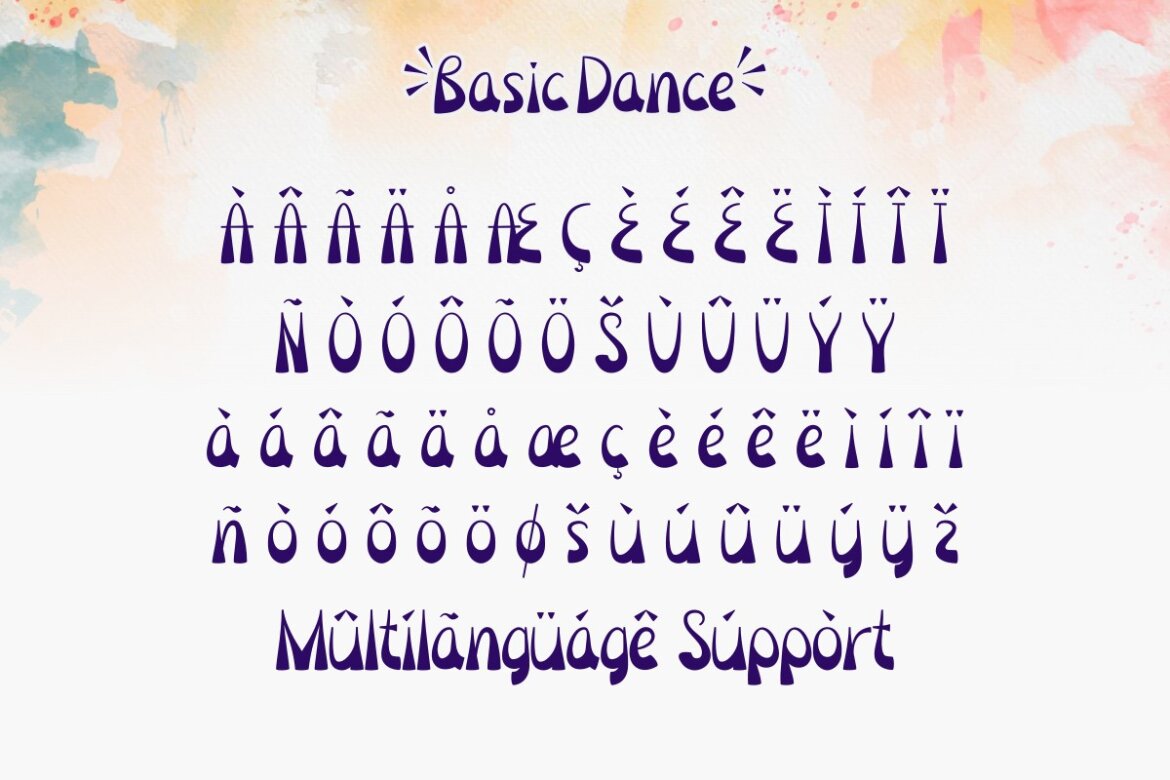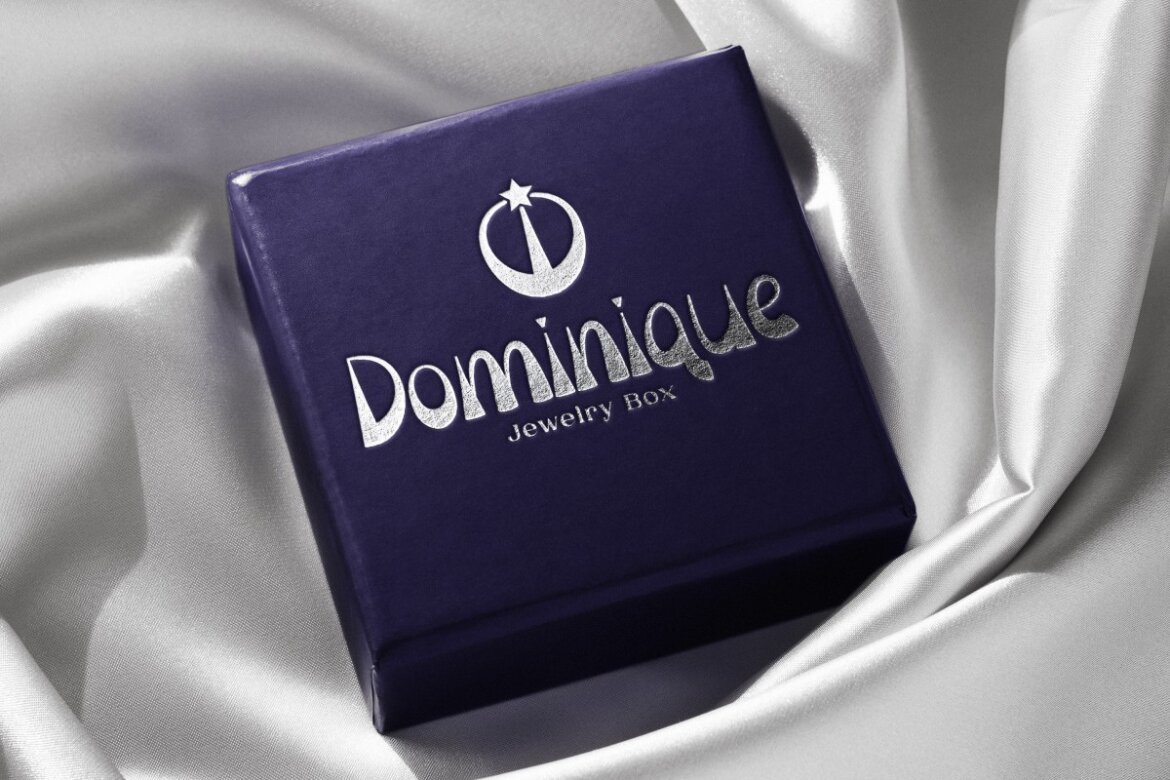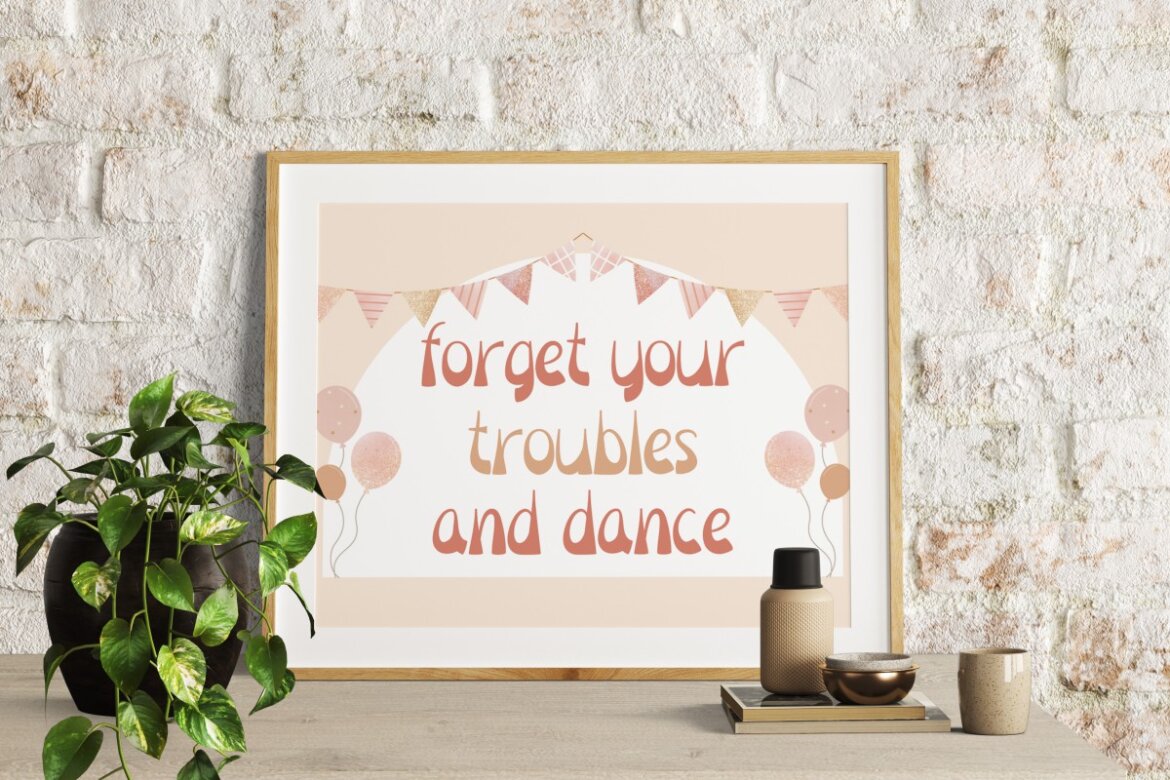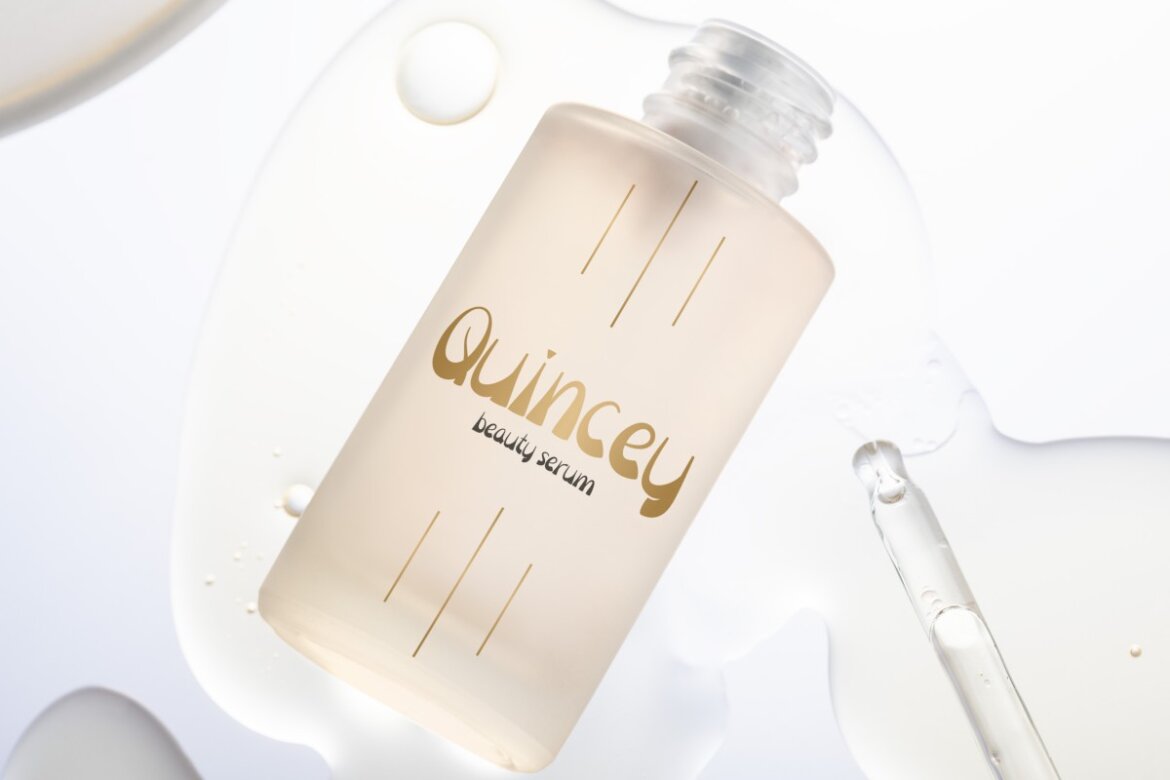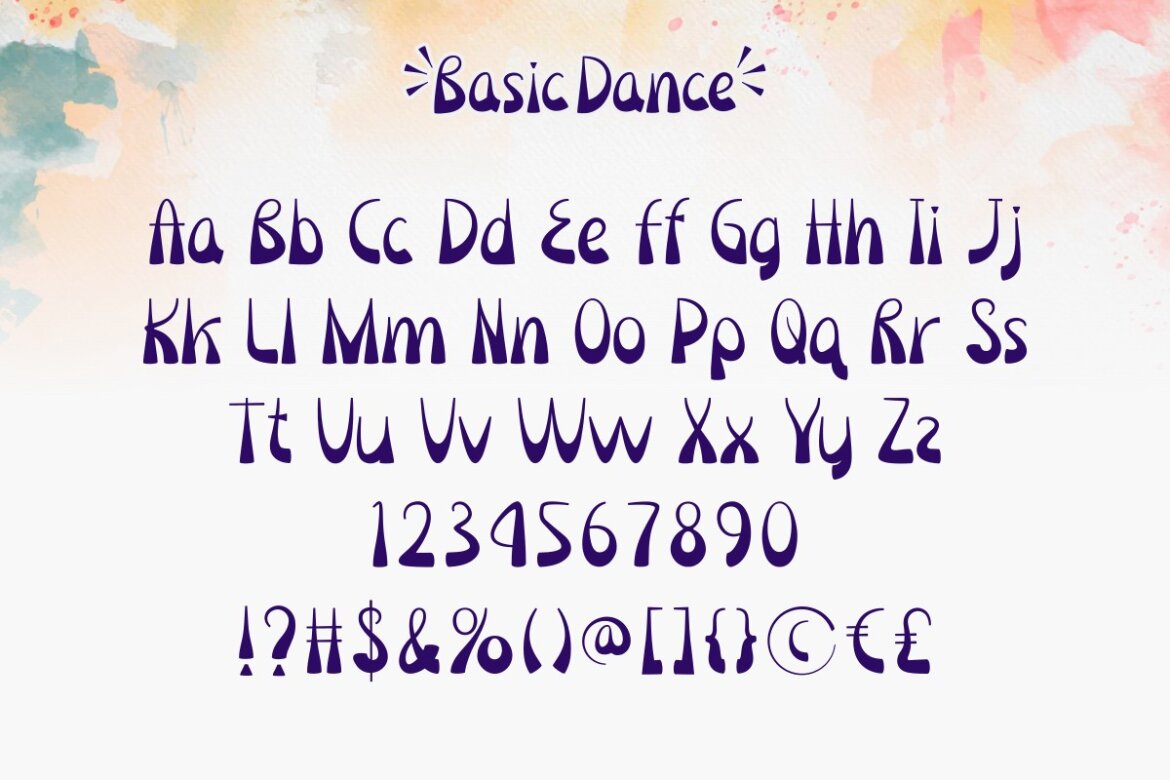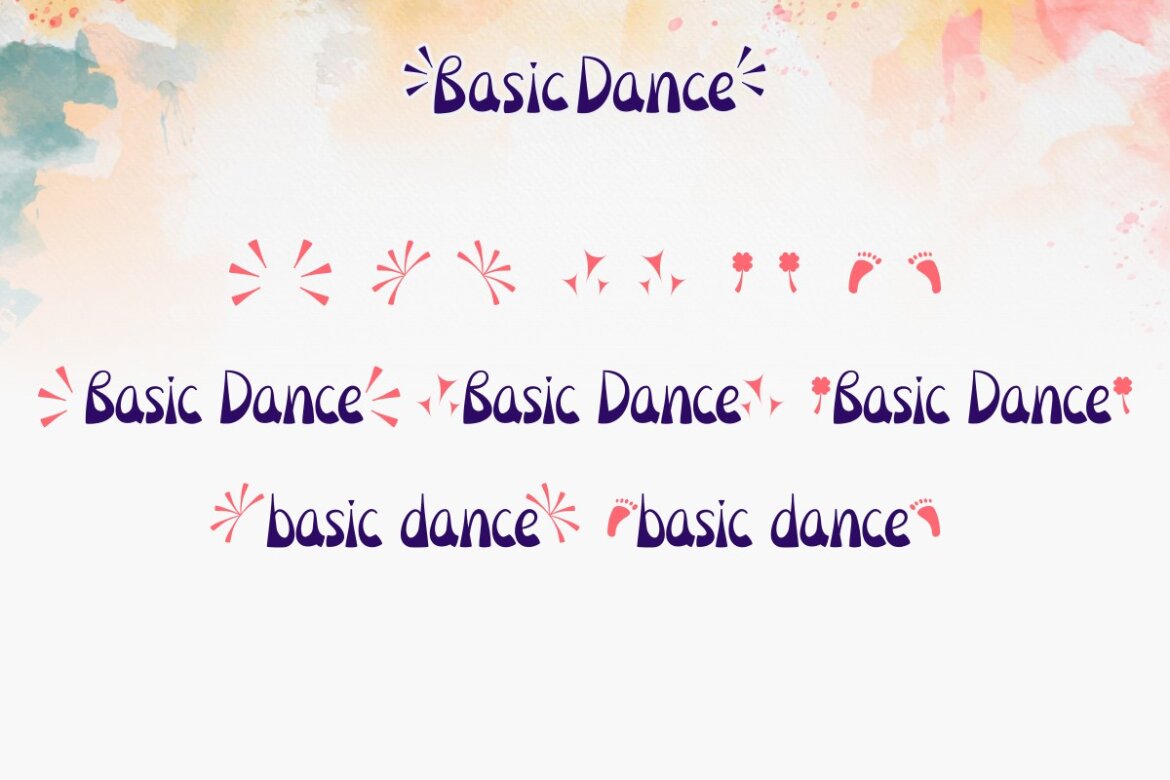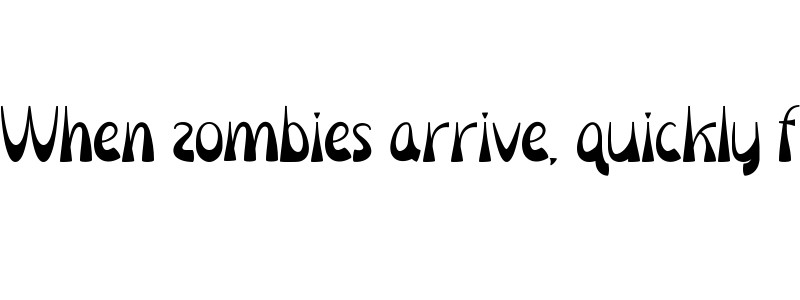
Basic Dance FREE Display Font
Basic Dance
Basic Dance Font is a fun yet classy display font with playful look, created by CalligraphyFonts. This font has a unique thickness at the bottom of each letter and will be ideal for your many industries, such as artist, boutique, cosmetic, event planner, jewelry, movie, music, and anything that requires stylish uniqueness. You’ll get:
Basic Dance Font will be perfect for any creative project including : billboard, brand logo, product packaging, label, quote, screen printing, stationery, title, and good for your secondary text font with script. Made with care so as to create perfection in writing and add aesthetics as well as fun to every design made. Basic Dance Font comes with a full set of Uppercase and Lowercase Basic Characters, Number, a large range of Punctuation and Symbol, and also supports multilingual characters. Ready to use both on Windows machine or Mac with simple installations. It’s tested to work well in the Adobe Apps (Illustrator, Adobe InDesign, Adobe Photoshop) CorelDraw, and others. PUA Encode Characters means you can access all the glyphs and swashes with ease – Fully accessible without additional design software.